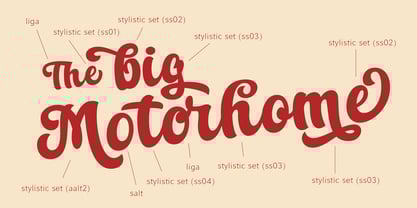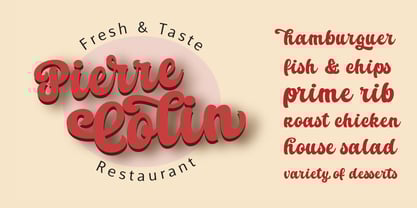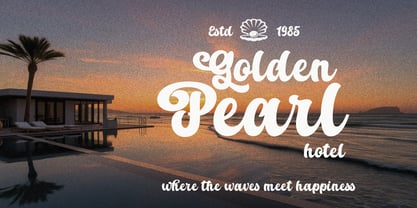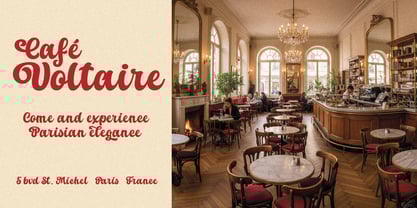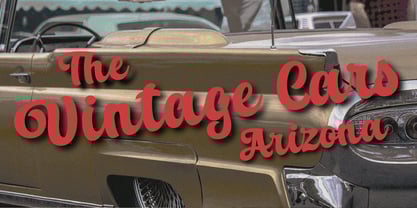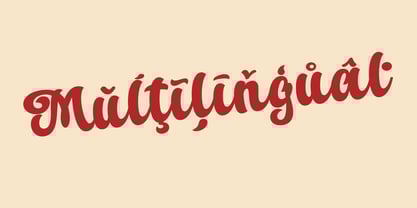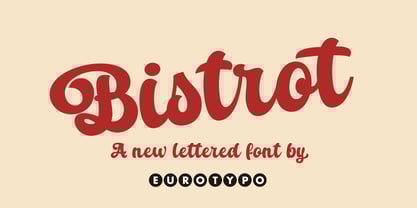
Bistrot
by Eurotypo
The Bistrot Font Family was designed by Carine de Wandeleer and published by Eurotypo. Bistrot contains 1 styles. More about this family
Bistrot is a delightful calligraphic typeface family created by Carine de Wandeleer. Its relaxed, natural flow combines elegance with a playful charm, making it versatile for a wide range of projects. This family offers an extensive OpenType features and support for Central European languages. It comes with multiple stylistic alternates, ligatures, and a complete collection of decorative elements: everything you need to spark creativity and works eye-catching. Ideal for branding, logos, business stationery, fashion, editorial design, packaging, menus, book covers, wedding invitations, greeting cards, and countless other creative uses. Let Bistrot inspire you and transform your ideas into designs that leave a lasting impression!
Eurotypo is a foundry established in 2004 by Carine de Wandeleer and Olcar Alcaide that focuses on research, design, and the production of new fonts. Originally formed in Santa Severa, Italy, the group has since moved its headquarters to Valencia, Spain. In Eurotypo we develop new and original typefaces inspired by both the models of ancient writing and the investigation of new forms of expression based on the communication function of typography. The group made its MyFonts debut with Antium, and has followed it up with bestsellers such as script faces Aleka and Juliette.